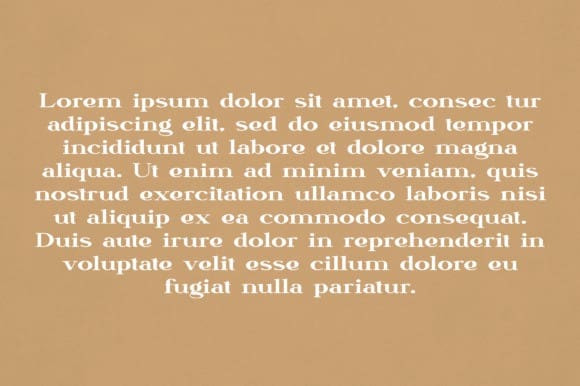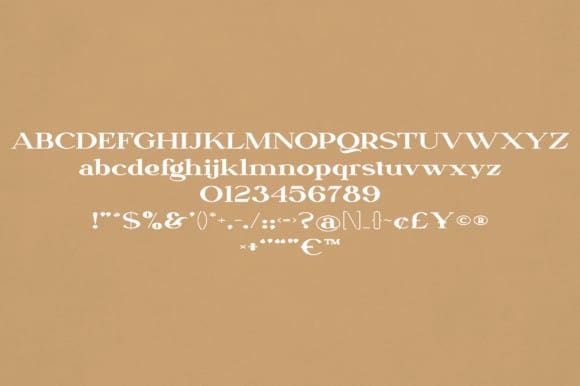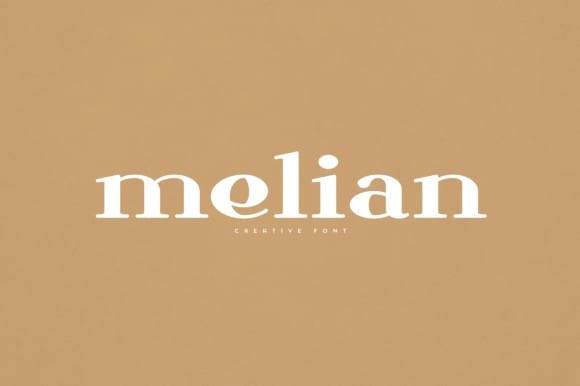
Melian Font
Melian Font is an elegant and versatile font that will make your typography truly unique! It will enchant every logo, branding, headline, or plain text!